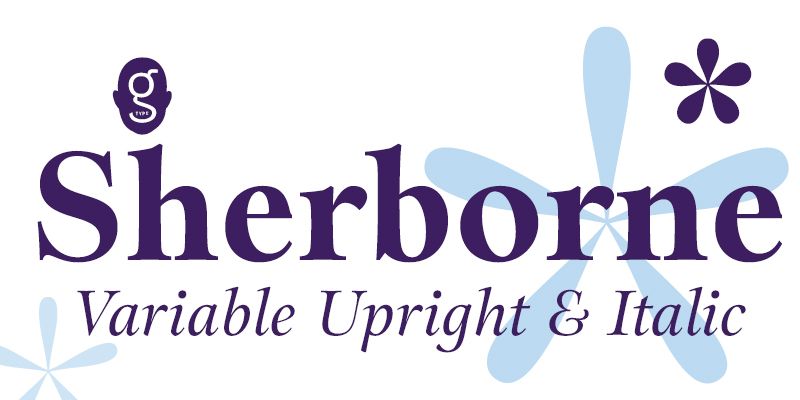
Sherborne Variable Font Free Download is a versatile serif typeface that seamlessly blends classic sophistication with modern adaptability. Featuring well-proportioned letterforms, strong contrast between thick and thin strokes, and an elegant structure, Sherborne is perfect for a wide range of applications, including branding, editorial design, high-end packaging, and luxury marketing materials.
The key feature of Sherborne Variable Font is its ability to adjust the weight and style, offering flexibility to suit various design needs. Whether you need a fine, delicate style for body text or a bolder look for headlines, Sherborne delivers versatility without compromising on readability or elegance.